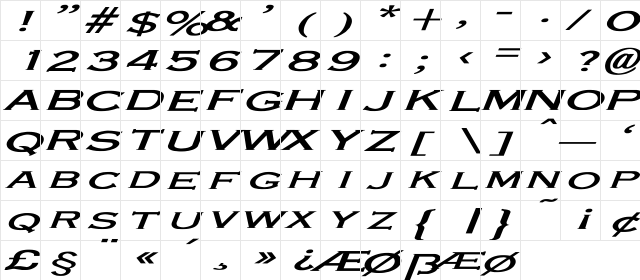
Engraver-Light Ex BI Bold Italic
Design Context for Engraver-Light Ex BI Typeface
Engraver-Light Ex BI offers clean, dependable letterforms without strong stylistic allegiance, making it a practical choice for designers who need flexibility. The slanted form adds forward momentum and visual energy. Its bold stroke weight gives it real presence on the page.